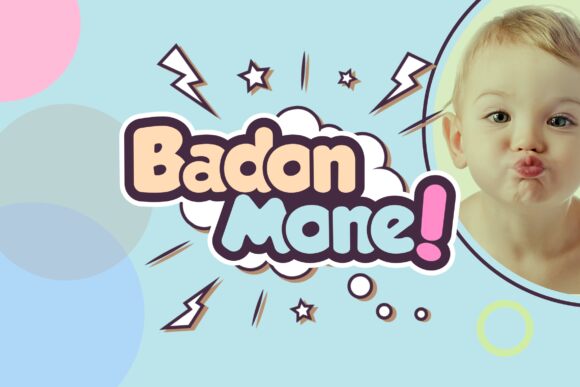
Badon Mone, the playful and extra-bold display font by Christmas Kalingga Abed Nego, is perfect for projects that need a touch of whimsy and fun. With its quirky cartoon style, it's an ideal choice for children's books, comics, posters, and packaging design. Use Badon Mone to add personality to your branding or make your headlines pop with its distinct character. This font is a great way to show off your creativity while staying true to your brand's message. Let Badon Mone bring some joy to your next project!
Badon Mone
Christmas Kalingga Abed Nego